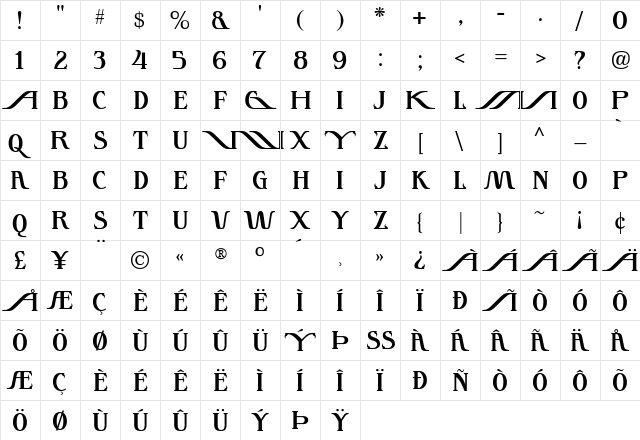
Instant Tunes Regular
Design Context for Instant Tunes Typeface
Instant Tunes is a composed and adaptable typeface that performs quietly and consistently across a wide range of design contexts.